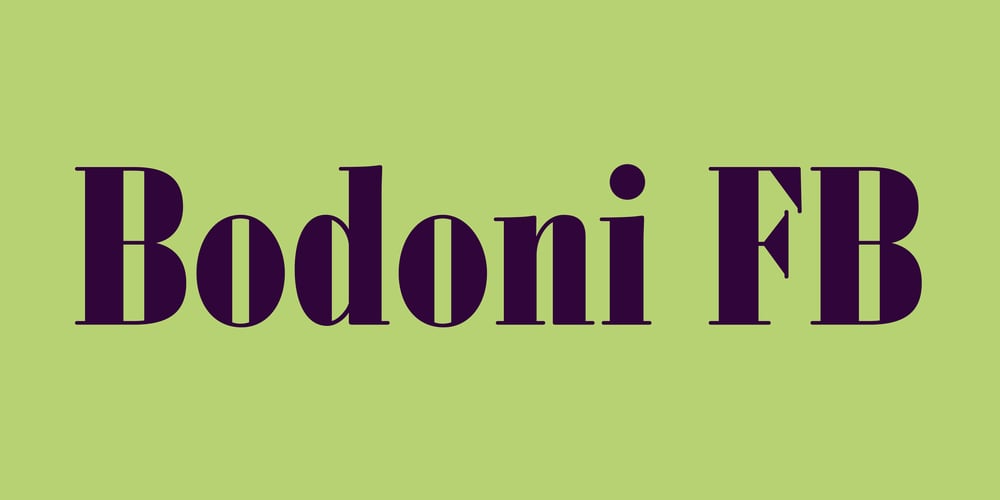
Bodoni FB
Bodoni FB font
Bodoni FB Font Family was designed by David Berlow and published by Font Bureau. Bodoni FB contains 2 styles and family package options. Working at American Type Founders from a Bruce Foundry recutting, Morris Fuller Benton worked out the dramatics of the English Fat Face, and in 1928 produced Ultra Bodoni, a headline spectacular. Using Benton’s 1933 Ultra Bodoni Extra Condensed, Richard Lipton digitized Bodoni FB Bold Condensed, then took compression even further and designed Bodoni FB Bold Compressed, a real technical tour de force; FB 1992